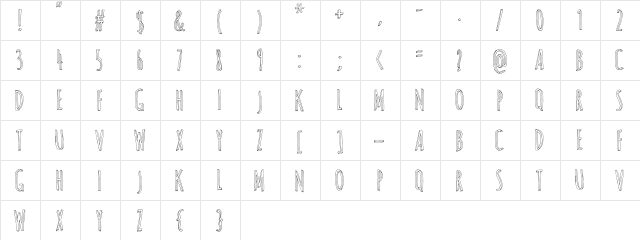
Playbook-Outline Font Preview
Playbook-Outline Outline
Design Context for Playbook-Outline Typeface
Playbook-Outline brings ornamental detail and strong personality to headlines and identities, where visual impact matters more than quiet functionality.
Font Pairing: Pair with a clean neutral sans-serif for body copy to let Playbook-Outline's character lead without overwhelming the composition.
Pro Tip: Use Playbook-Outline exclusively at display sizes — it was designed to be seen, not read at length. Let a neutral companion handle body copy.